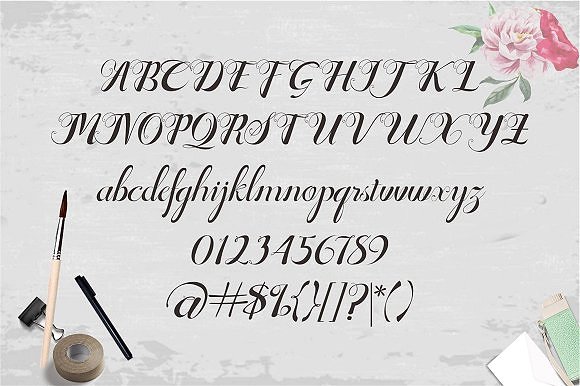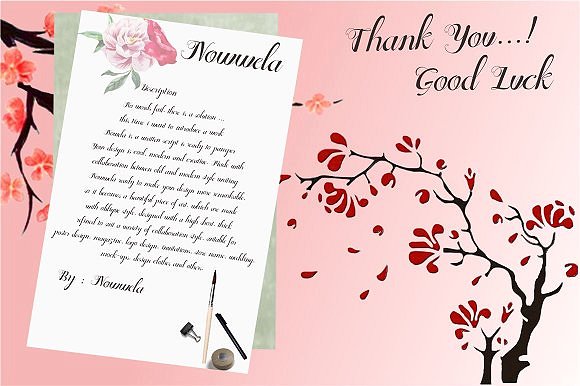
Introduction to Nowwela Font Font
Fonts play a crucial role in design, and the Nowwela Font font is a typeface that brings both character and versatility to any project. Whether you’re working on a branding project, a website, or a print design, the Nowwela Font font offers a unique style that can elevate your work.
| 📌 Font Name | Nowwela Font |
| 👤 Author | Greenland |
Nowwela is a cool and modern script font, made in an oblique style for a luxurious and editorial look.
This font was designed with a high short, and thick contrast for truly eye-popping typography .
Key Features of Nowwela Font Font
Why Choose Nowwela Font Font?
The Nowwela Font font is more than just a typeface – it’s a design tool that helps you communicate your message with style and clarity. Its unique character set and versatile design make it suitable for a wide range of applications, from elegant invitations to bold headlines.
With its carefully crafted letterforms and balanced proportions, the Nowwela Font font ensures readability and visual appeal across all mediums.
What makes Nowwela Font font special?
The Nowwela Font font stands out with its unique design, exceptional readability, and versatility across various design applications.